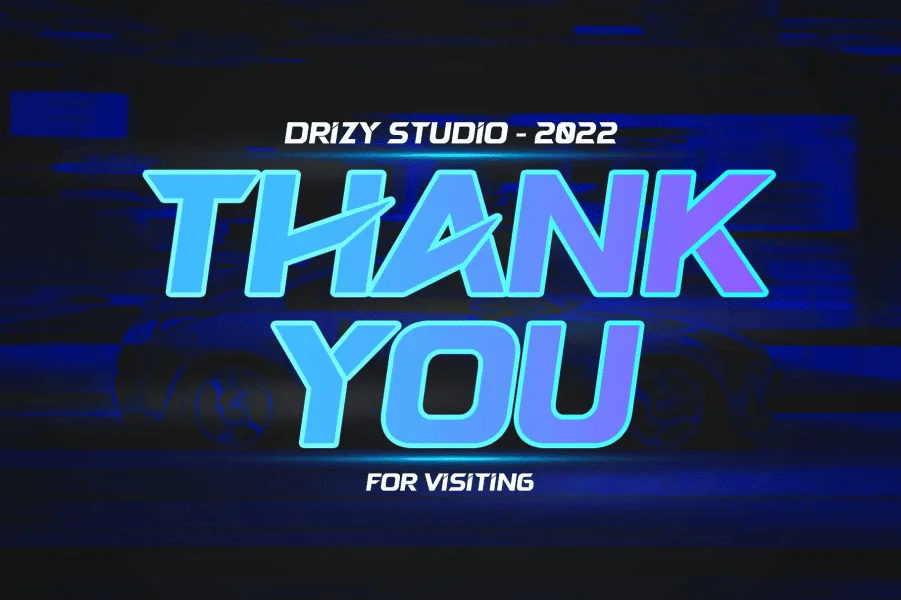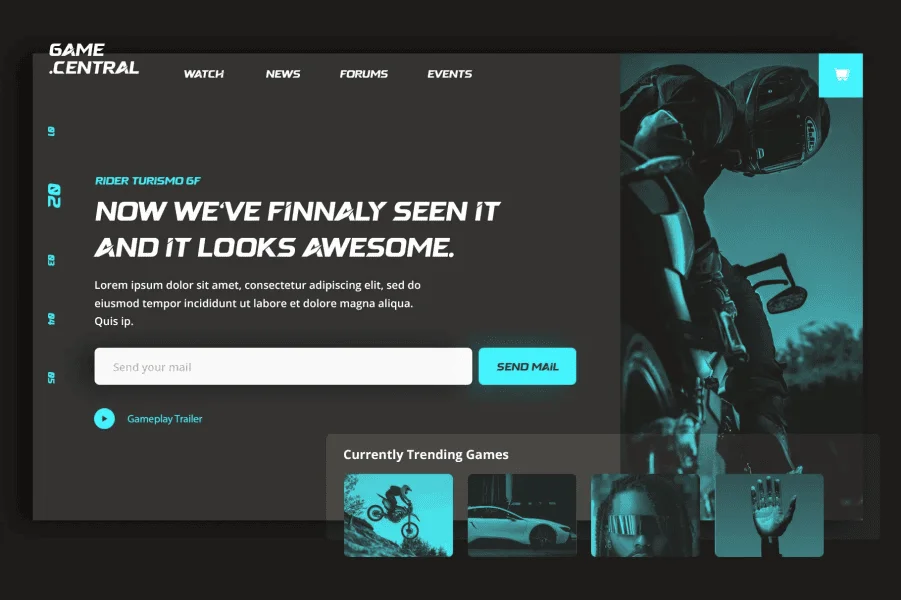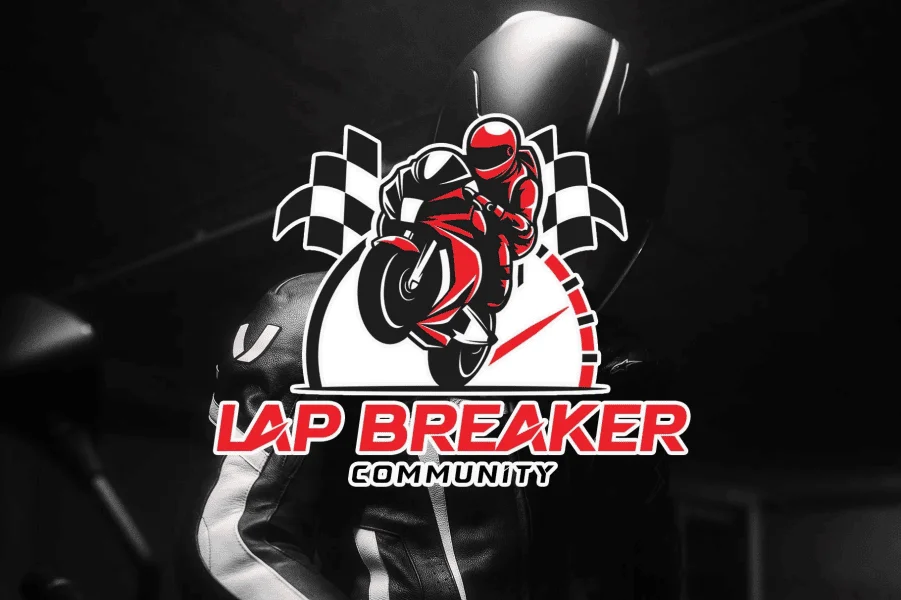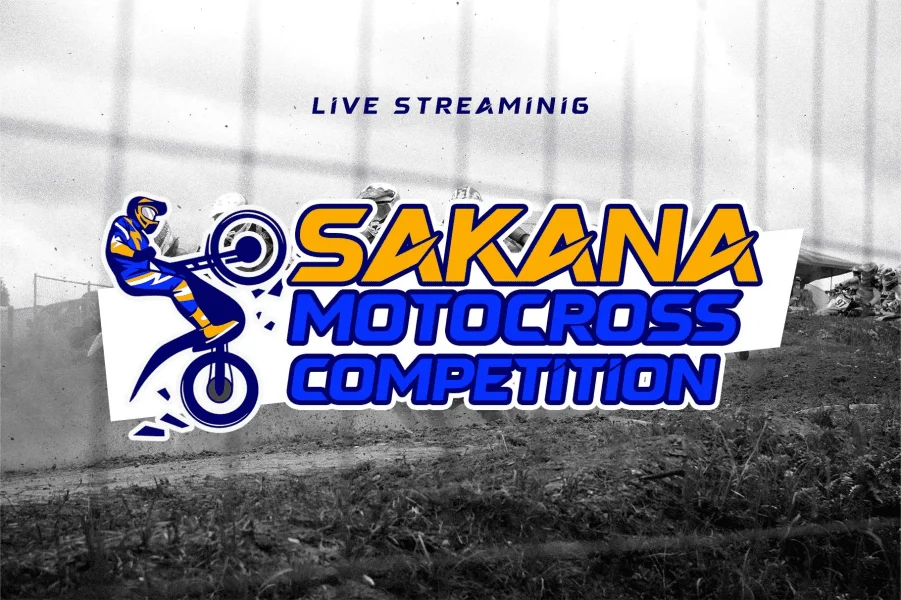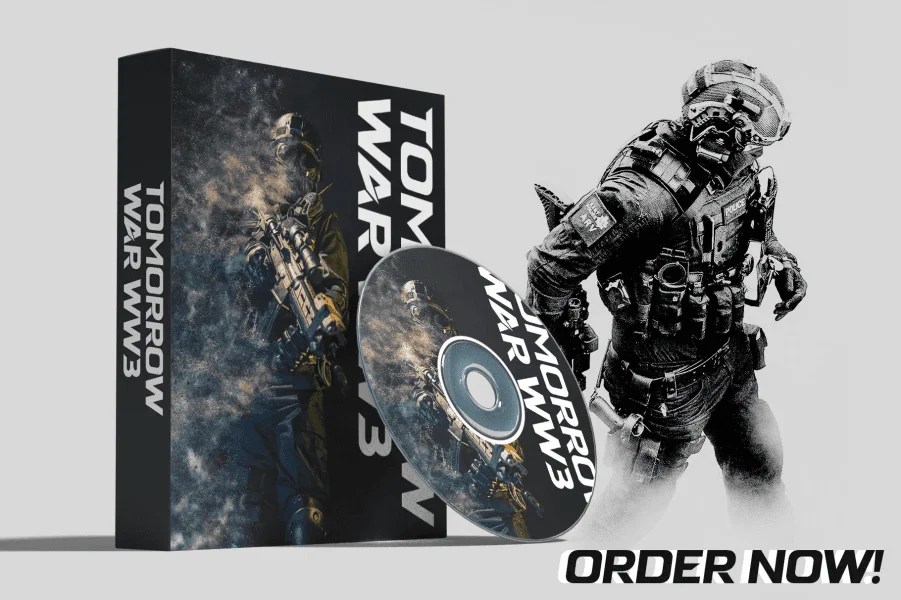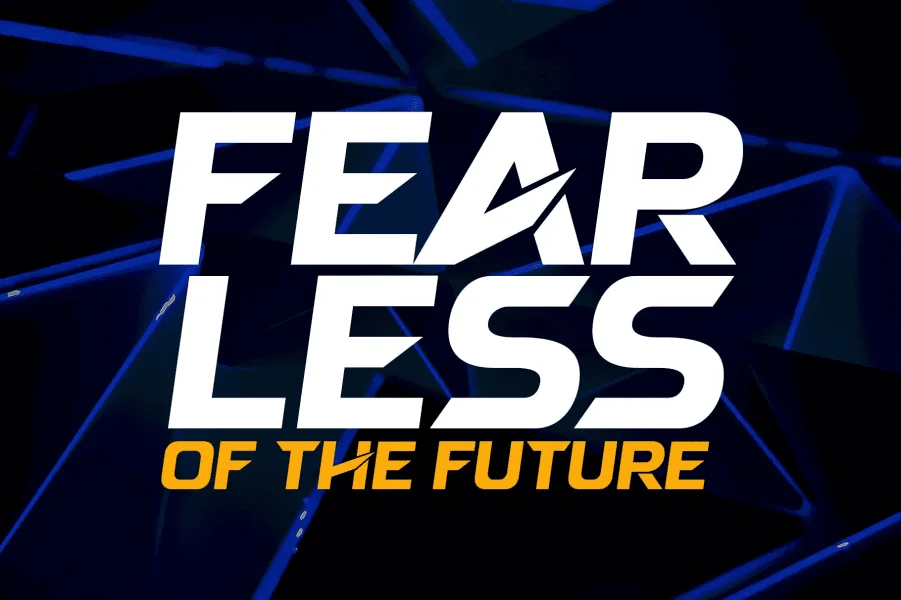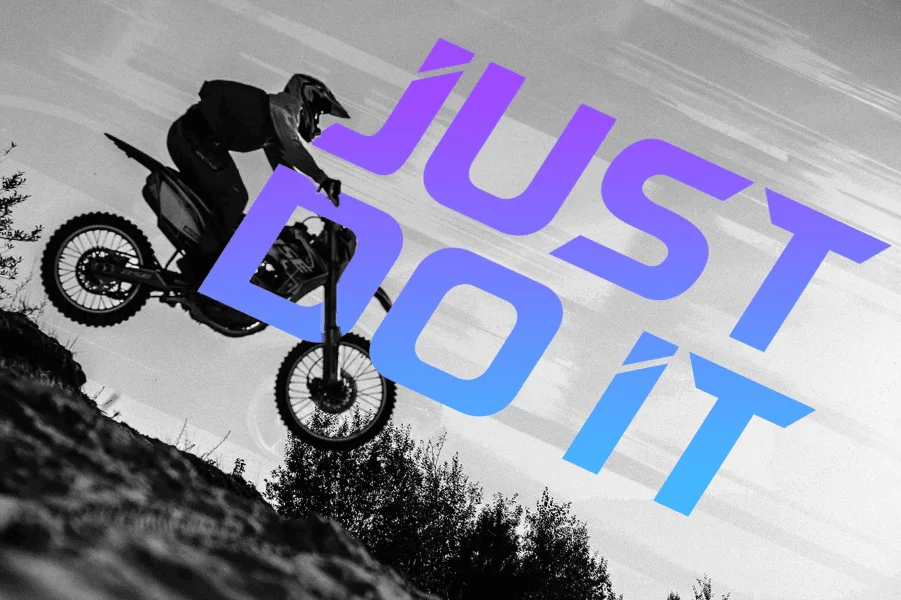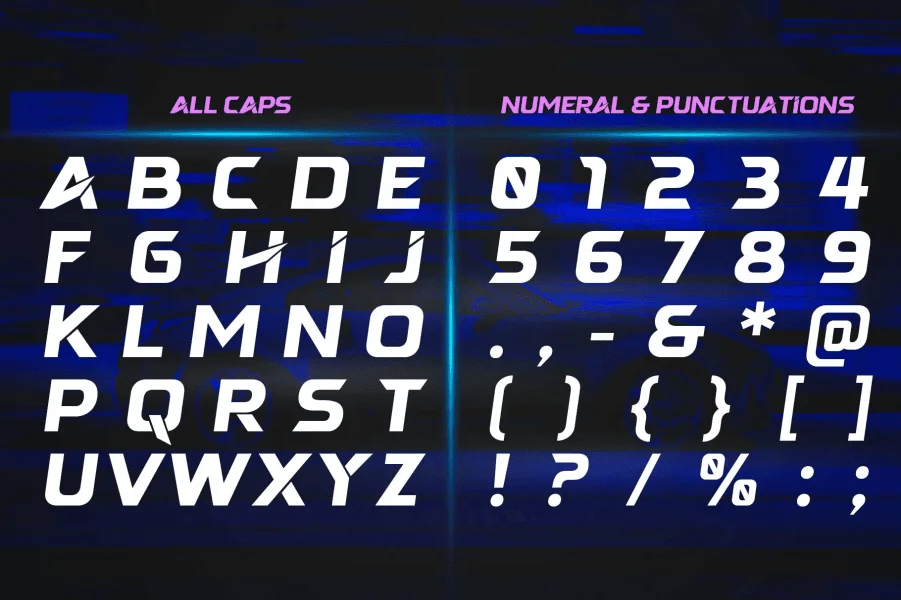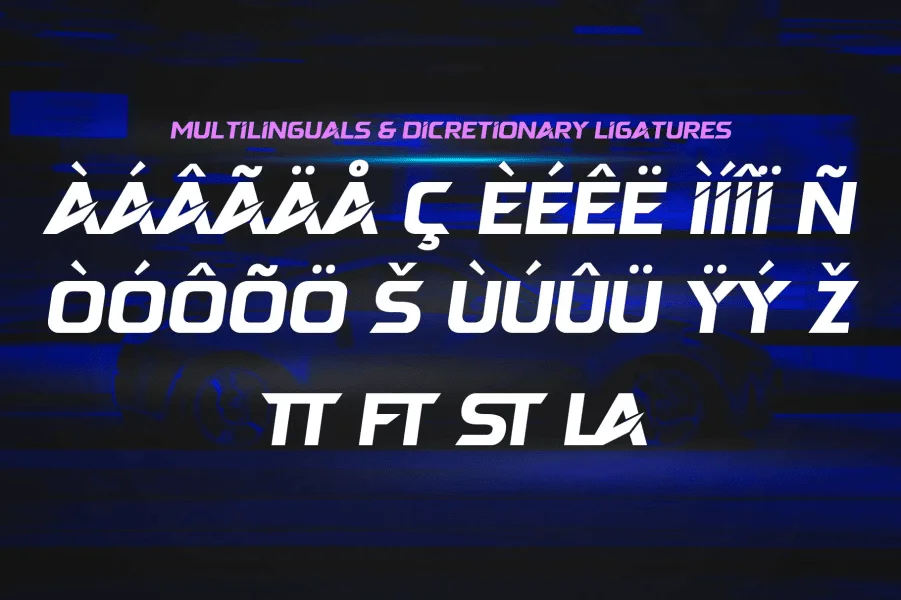
Sakana is a Sport Modern Display Font from Drizy Studio.
Rev up your designs with Sakana – an automotive-inspired sport modern display font that accelerates your creativity to the fast lane. Its sleek and streamlined letterforms bring a sense of speed and performance to your automotive projects, leaving a lasting impression on gearheads and design enthusiasts alike.
Sakana is the perfect companion for automotive branding, car dealership promotions, racing event posters, and anything that needs a touch of high-octane energy. Let this font ignite the passion for all things automotive and convey the excitement of the open road in your designs.